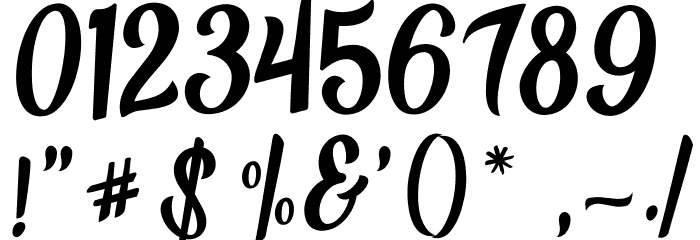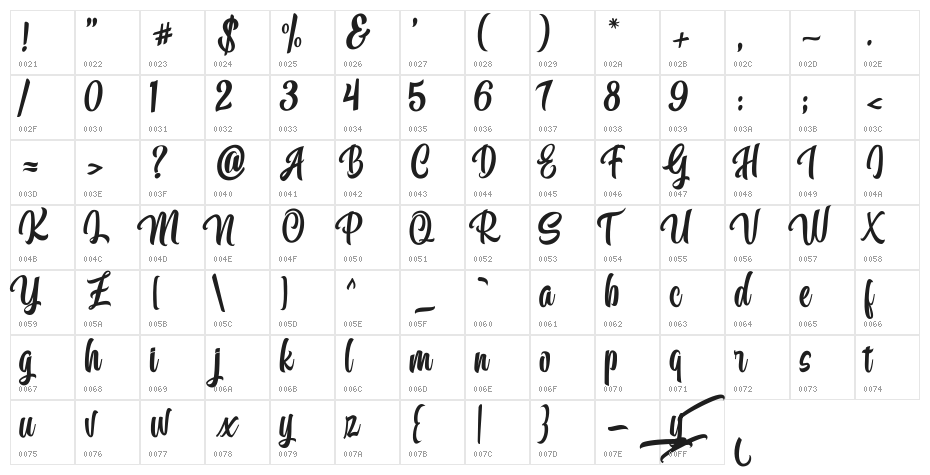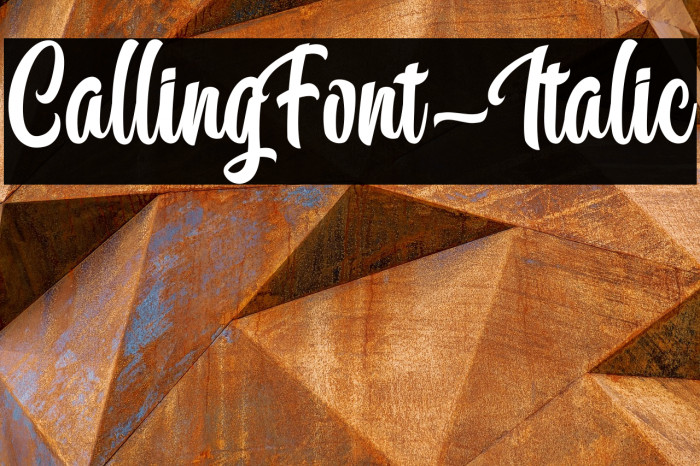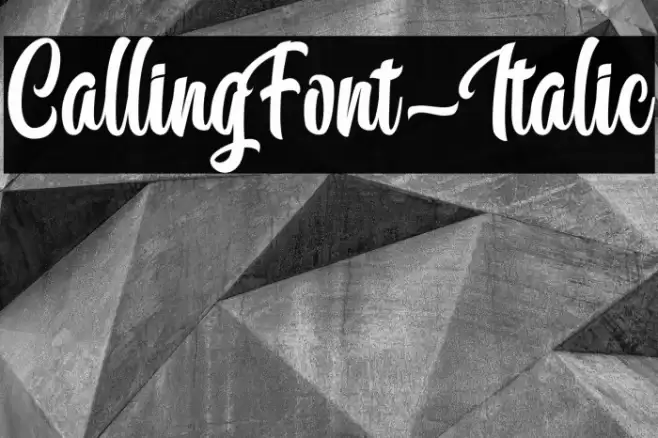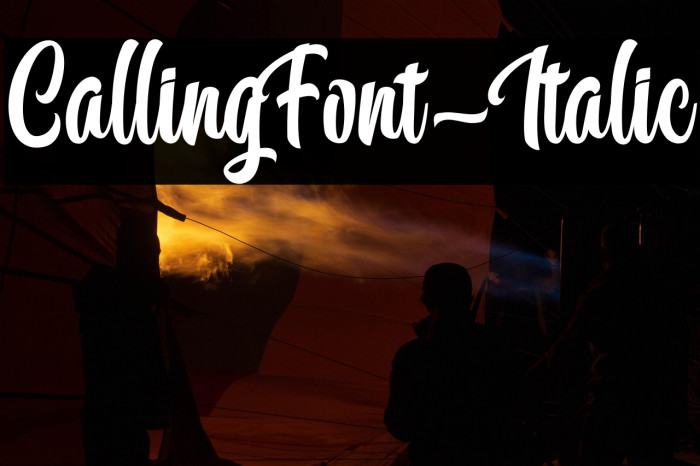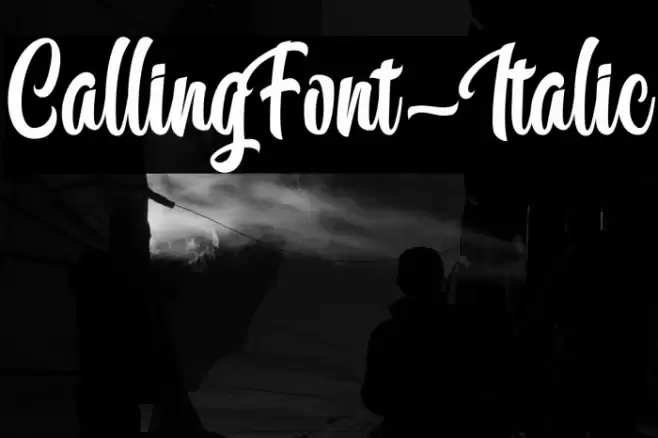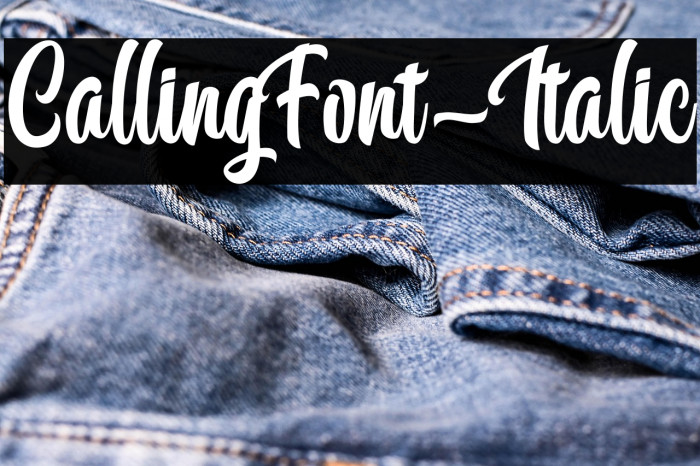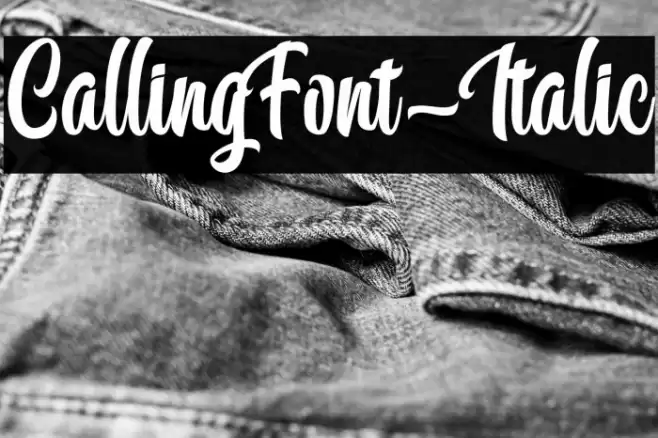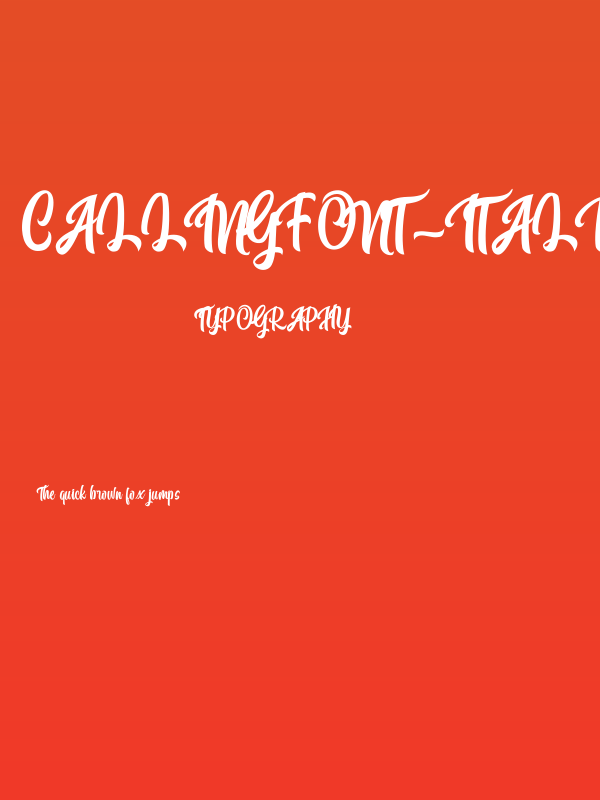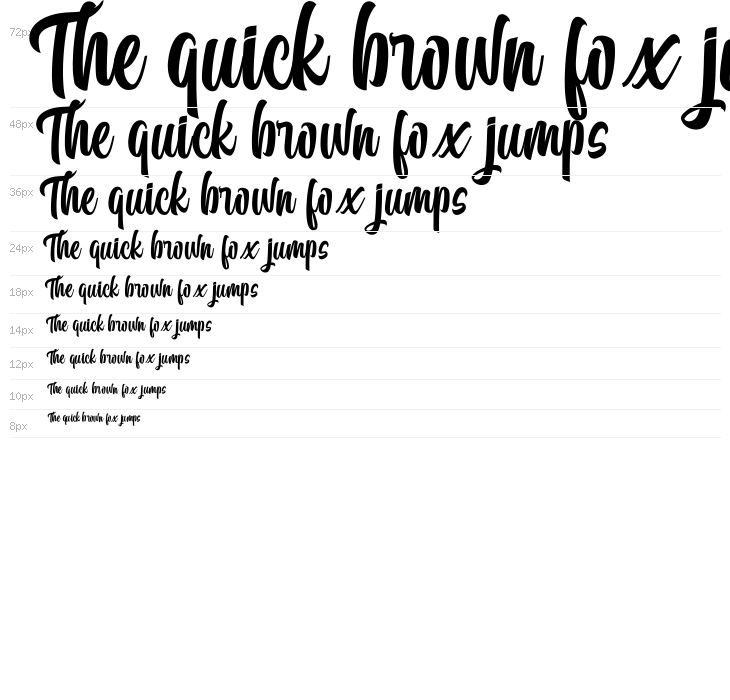
CallingFont-Italic Font
CallingFont-Italic Description
This font features a bold, cursive style with a playful and energetic flair. The letters are connected in a flowing manner, giving it a handwritten appearance. The uppercase and lowercase letters maintain a consistent style, with smooth curves and rounded edges. Numbers and special characters are designed to match the overall aesthetic, ensuring a cohesive look. The bold strokes and slight slant add to its dynamic and expressive nature, making it suitable for creative and informal applications.
| Proposed Projects | Ideal for greeting cards, invitations, posters, and branding materials that require a personal touch. |